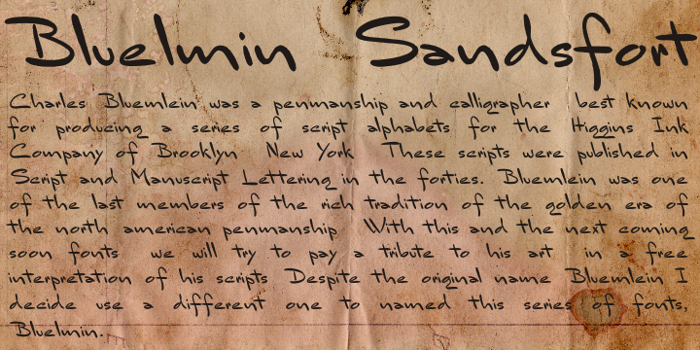
Bluelmin Sandsfort Font
ABOUT THIS FONT - BLUELMIN SANDSFORT
Charles Bluemlein was a penmanship and calligrapher, best known for producing a series of script alphabets for the Higgins Ink Company of Brooklyn, New York. These scripts were published in Script and
Manuscript Lettering in the forties. Bluemlein was one of the last members of the rich tradition of the golden era of the north-american penmanship. With this and the next coming soon fonts, we will try to pay
a tribute to his art, in a free interpretation of his scripts. Despite the original name Bluemlein I decide use a different one to named this series of fonts, Bluelmin.